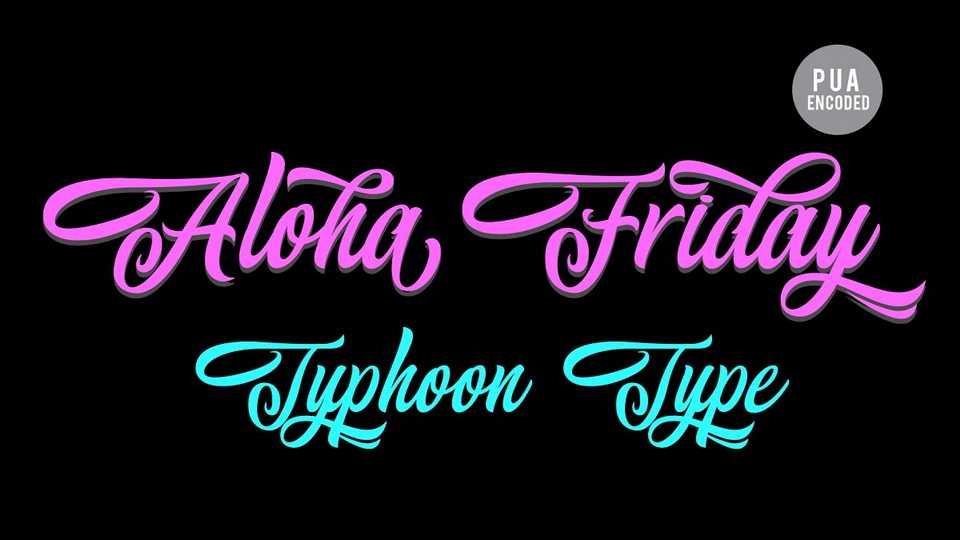
Download Aloha Friday font, a classy hand lettered script with fancy swashes. Aloha Friday is perfect for logos, name tag, advertising, product packaging, clothing, social media & greeting cards.
Designer: TyphoonType